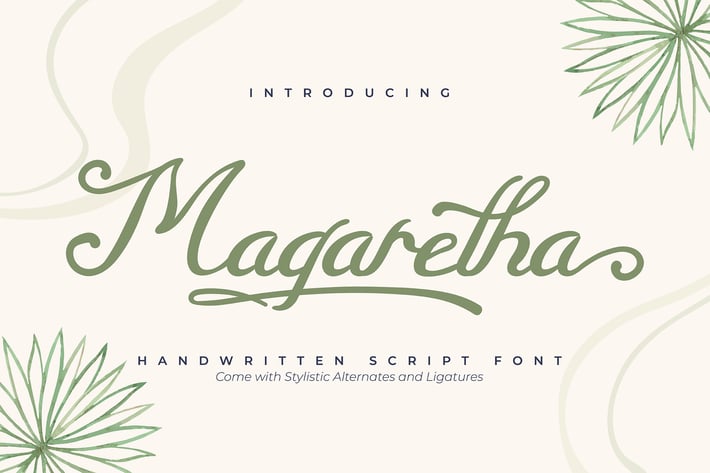
Magaretha | Handwritten Script Font
Magaretha | Handwritten Script Font with a calligraphy style, So beautiful on invitation like greeting cards, branding materials, business cards, quotes, posters, and more!